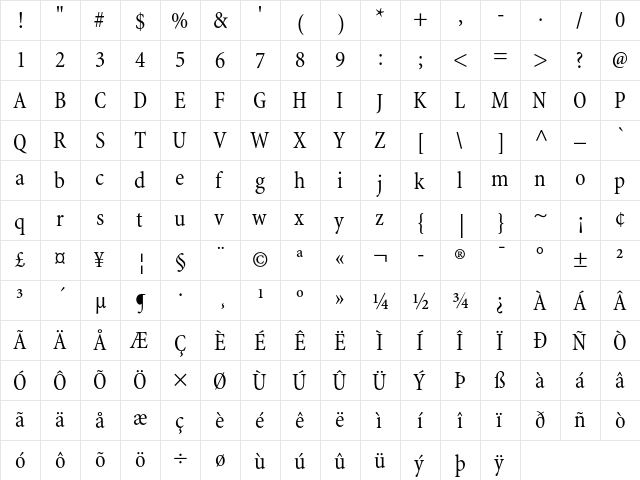
Minion Condensed Font Preview
Minion Condensed
Minion Condensed Font Details
Design Context for Minion Typeface
Minion takes a measured approach to typography — its balanced proportions and neutral character make it a reliable workhorse for both digital and print work. The condensed width makes it efficient for tight spaces without sacrificing legibility.